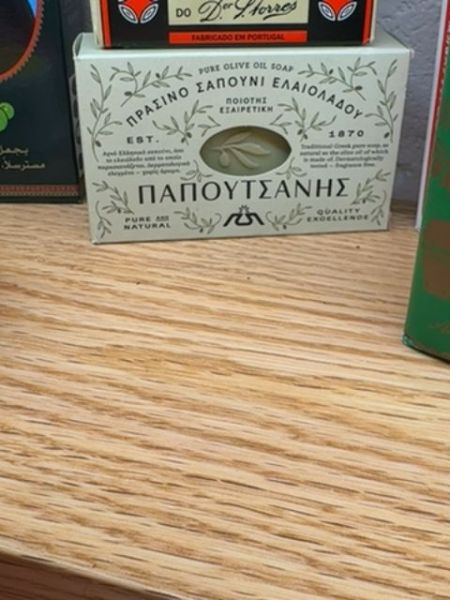
Papoutsanis Olive Oil Soap
A natural soap made from pure olive oil, suitable for various skin types and known for its moisturizing properties.
1870
Greece
The typography uses a serif font that conveys a sense of tradition and quality, appropriate for a long-established product. The Greek text is bold and prominently featured, reflecting the product's cultural heritage. The typeface is clean and distinct, making it easy to read and adding to the packaging's elegant simplicity.
The packaging features a minimalistic design with a natural aesthetic. It has an open window in the center displaying the soap, complemented by olive branches that denote its organic ingredients. The color palette is primarily green and cream, emphasizing its natural origins.
- Papoutsanis is known for its high-quality, traditional Greek olive oil soaps.
- The company was established in 1870, making it one of the oldest soap manufacturers in Greece.
- Papoutsanis soaps are well-regarded for being environmentally friendly and biodegradable.